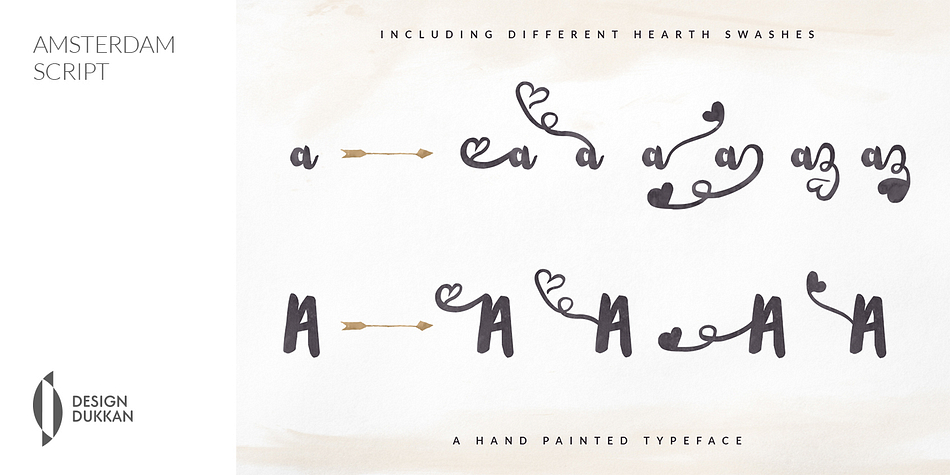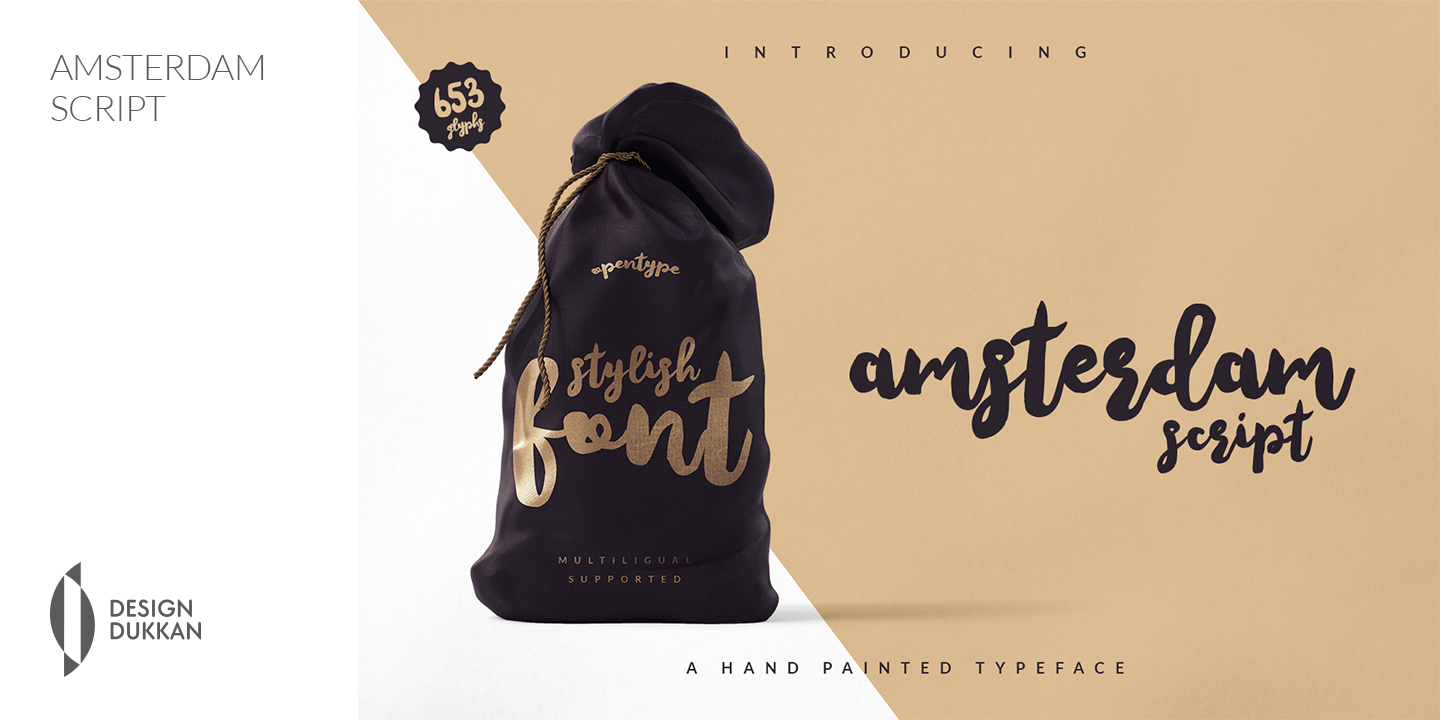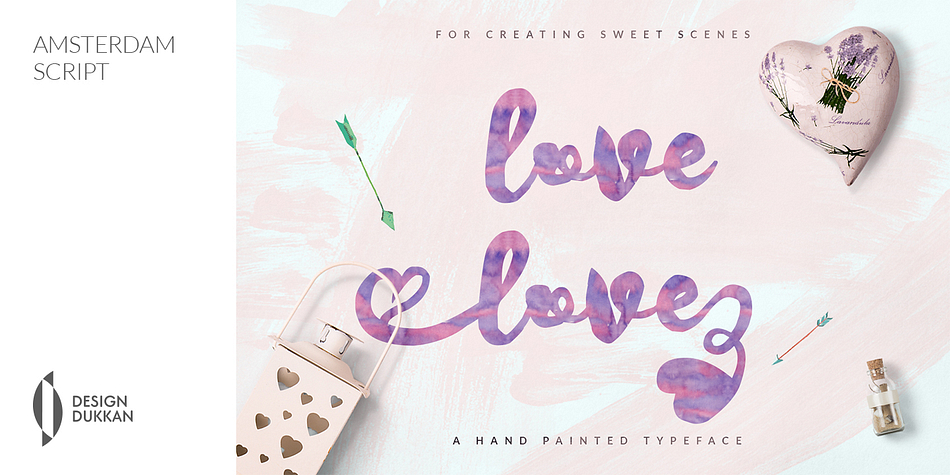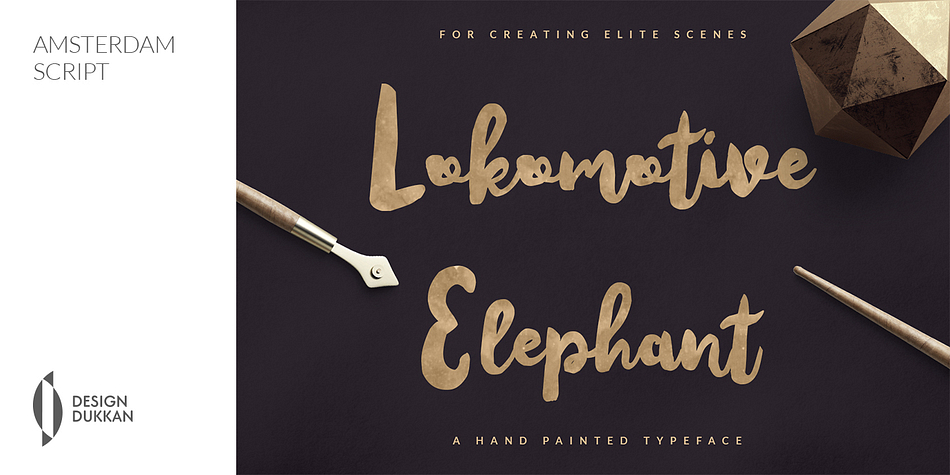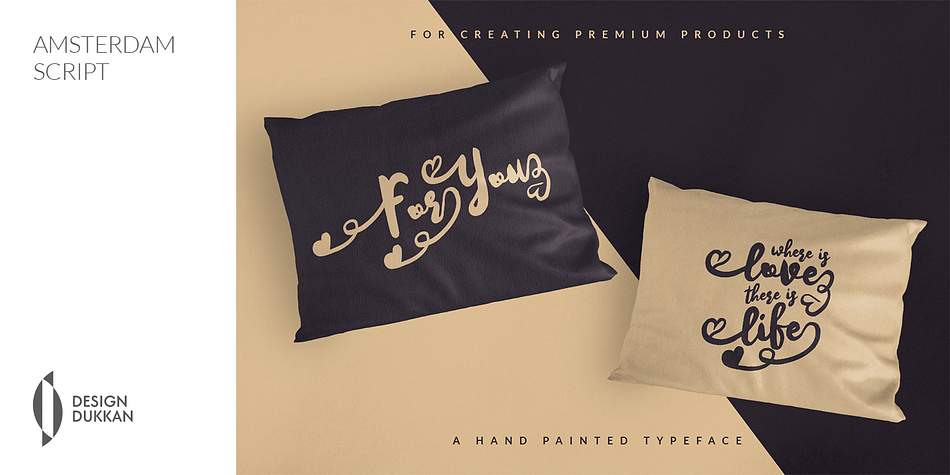
Amsterdam Script is a brush script font published by DesignDukkan.
Amsterdam Script is a hand-made font created by using a thick brush. It is a lovely font whose thick lines are charming.